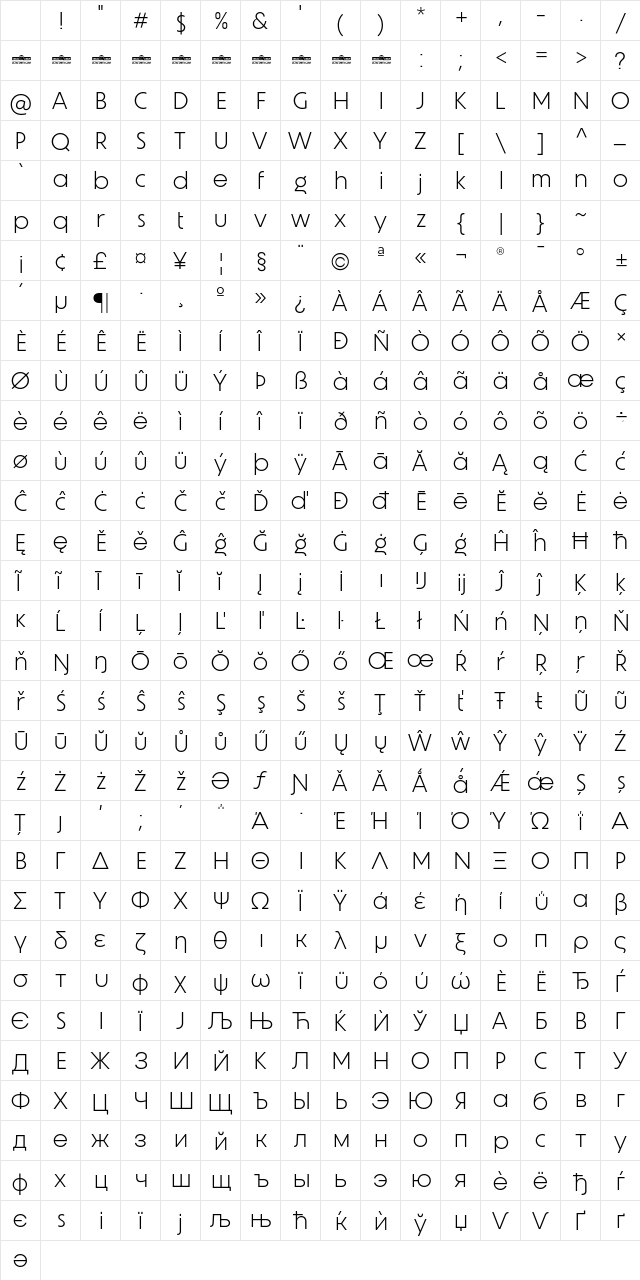
Complete Unigeo64 Trial Light Regular glyph index. Displaying only characters natively supported by Unigeo64 Trial Light Regular font.
Unigeo64 Trial Light is a composed and adaptable typeface that performs quietly and consistently across a wide range of design contexts. Its slender proportions lend an understated elegance to any composition.